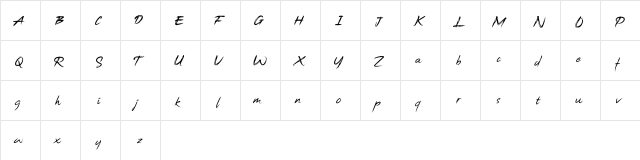
UrgentBrush Regular
Design Context for UrgentBrush Typeface
UrgentBrush flows with the natural rhythm of handwritten lettering, making it ideal for designs that call for warmth and personal expression.
Font Pairing: Combine UrgentBrush with a simple geometric sans for maximum contrast — the tension between flowing curves and clean structure is a classic typographic pairing.
Pro Tip: Pair UrgentBrush with a clean sans-serif for supporting text. The contrast between fluid script and geometric structure creates an elegant typographic hierarchy.